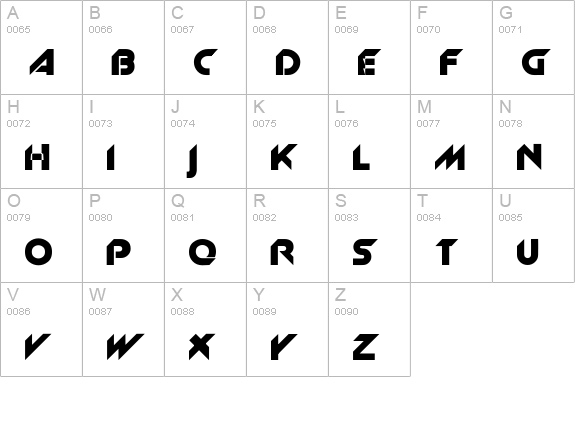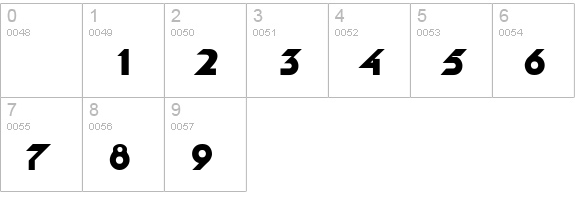
PCAndilarett font is a stunning typeface that will surely captivate your audience with its elegant and sophisticated design. This font exudes a sense of modernity and professionalism that will elevate any project to new heights. Its clean lines and perfectly balanced letterforms make it a versatile choice for a wide range of design applications. With its free availability to download at FontsMarket.com, PCAndilarett font offers both convenience and affordability. Whether you are a graphic designer, web developer, or simply an individual looking to enhance your personal projects, this font is a valuable asset that is just a few clicks away. The PCAndilarett font boasts a comprehensive character set, including uppercase and lowercase letters, numbers, punctuation marks, and special symbols. This allows for seamless integration into various design projects, such as logos, branding materials, websites, invitations, and much more. Its versatility and flexibility make it the perfect choice for both print and digital mediums. Furthermore, PCAndilarett font is highly legible, ensuring that your message is easily conveyed to your audience. Its well-defined letterforms, generous spacing, and balanced proportions make reading a pleasurable experience. Whether used in large or small sizes, this font maintains its clarity and readability, making it suitable for a wide range of applications. Additionally, PCAndilarett font offers a wide array of stylistic alternates and ligatures, allowing you to customize and personalize your designs. These features provide endless possibilities for creating unique and eye-catching typography that stands out from the crowd. From elegant flourishes to decorative swashes, this font allows you to add a touch of creativity and individuality to your projects. In conclusion, PCAndilarett font is a must-have for any designer or individual seeking a sophisticated and versatile typeface. Its free availability to download at FontsMarket.com makes it easily accessible to everyone, regardless of budget or experience. With its clean design, extensive character set, and customizable features, PCAndilarett font is a valuable addition to any font library. Take advantage of this opportunity to enhance your designs and make a lasting impression on your audience.